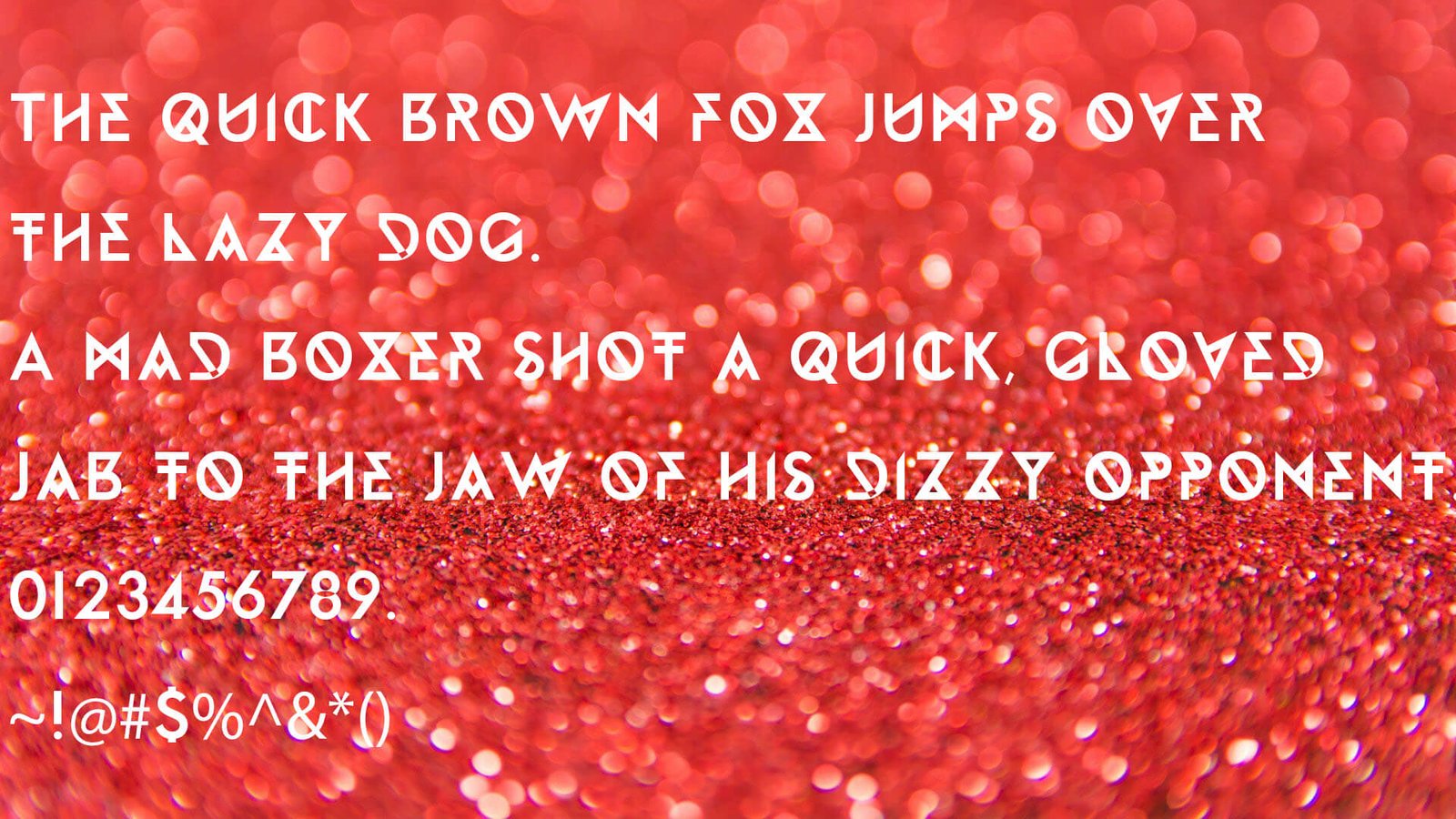
Here is one of the antique fonts in the world that is designed by David Massara. It was published for the first time in 2014. David Massara is one of the top designers in the world.
It has 2 types of variation, one is a standard font which has a very clean and quality design and the second one is a combination of the two influences to design an attractive texture design.
Neptune Font Family
| Name | Neptune Font |
| Designer | David Massara |
| Type | Sans Serif |
This font is based on the violence of Ancient Rome. So this font has a very unique design. It attracts many designers from all over the world. This attractive font is best suitable for the Headlines, Titles, and poster.